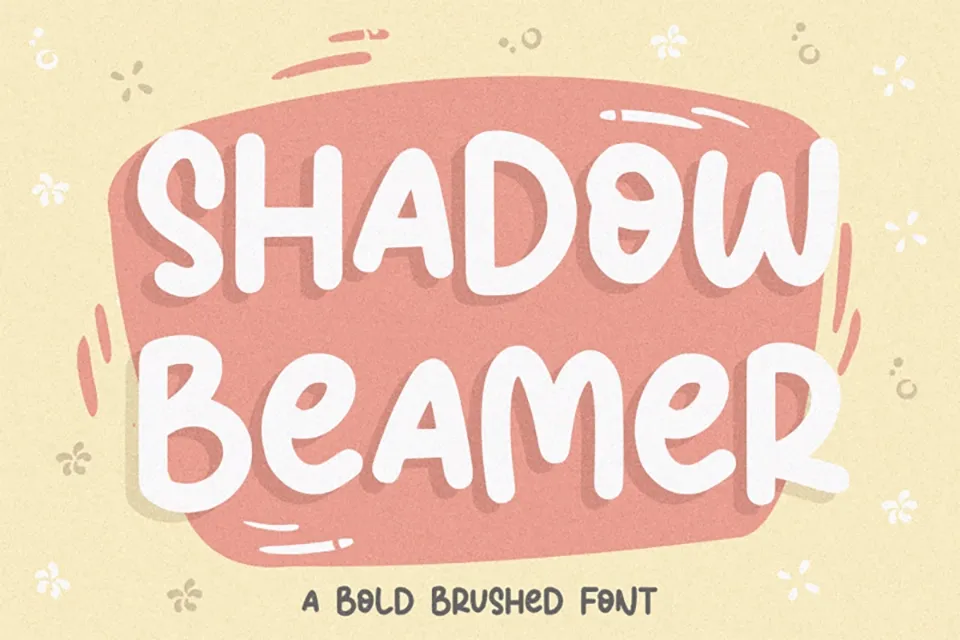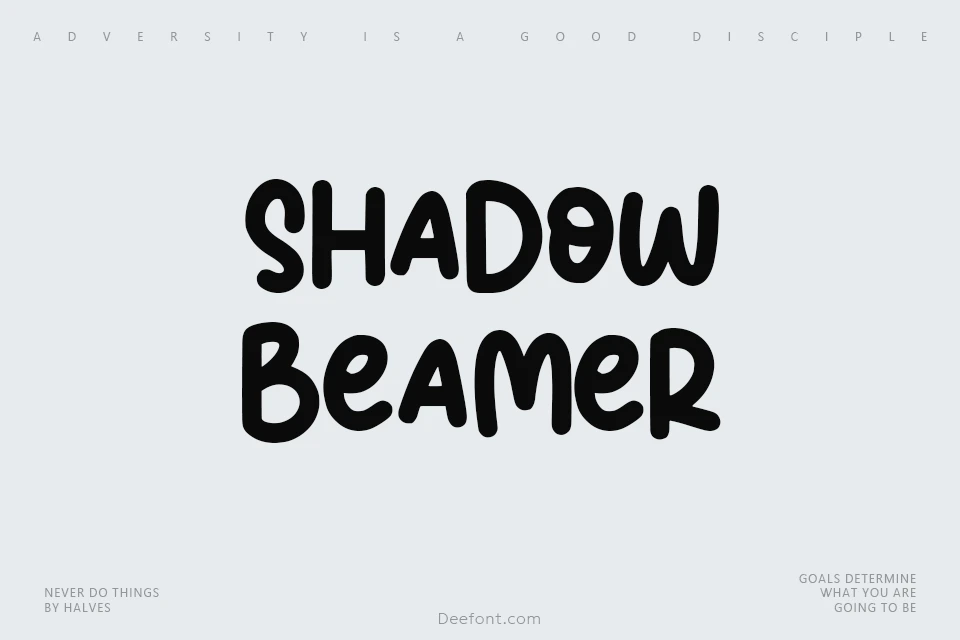
Shadow Beamer Font
Shadow Beamer Font is a playful and versatile handwritten font created by Balpirick Studio. This charming typeface features bold, rounded characters with a consistent thickness, giving it a chunky and friendly appearance. Its cute and bubbly design makes it perfect for various creative applications, including product packaging, branding projects, magazines, social media content, and children’s books. Its informal and approachable style adds a lively touch to any creative project, making it particularly effective for designs that aim to convey a fun and welcoming atmosphere.